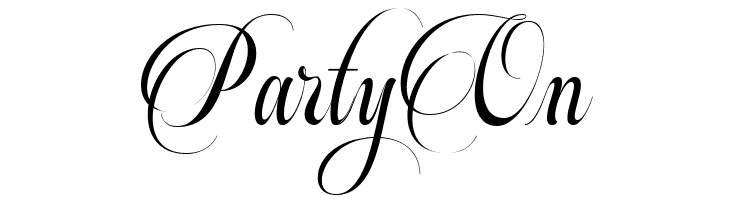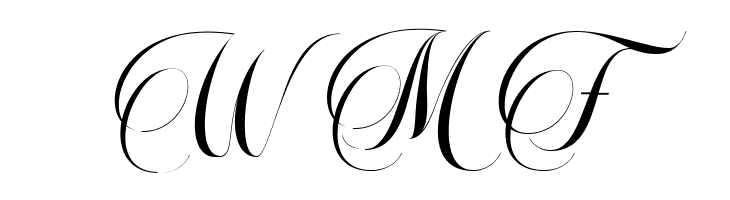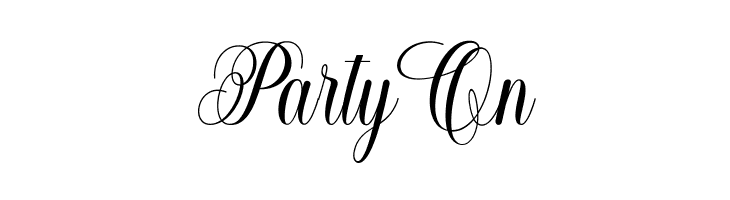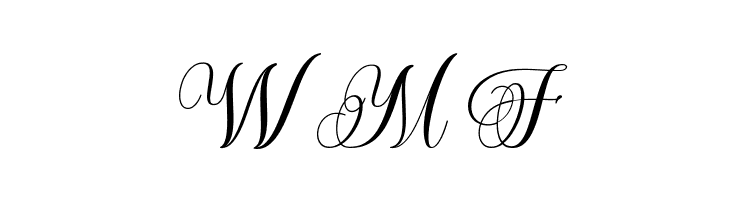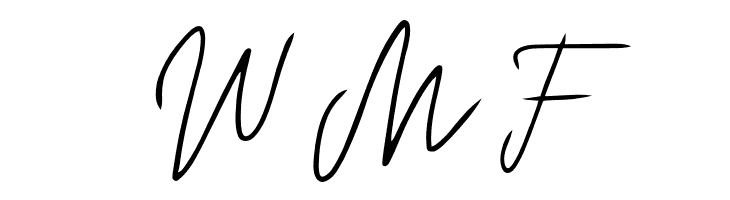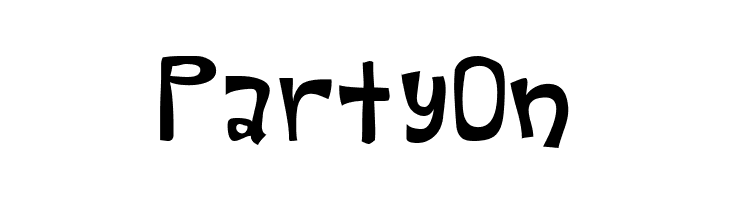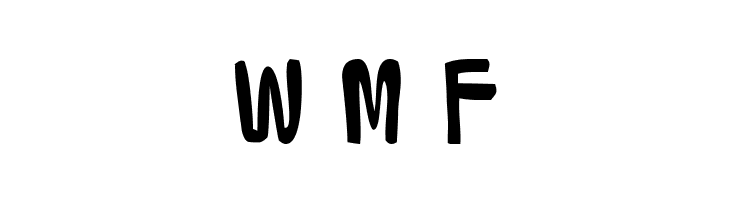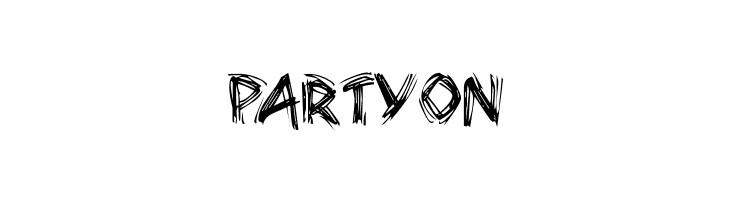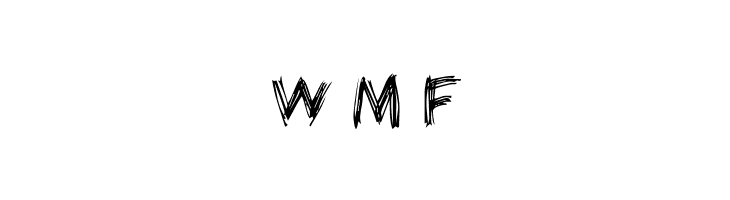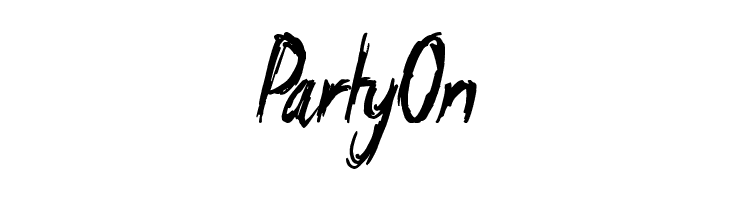
• Beachman Script
An elegant script font with flowing, cursive strokes and refined curves.
• Beacon
• Beans Plantain Regular
( Fonts by Udegbunam Tbj )
A bold, hand-drawn font with an expressive and organic style.
• Bearpaw
• Bearz
• BeatriceScript-Regular
An elegant script font with intricate loops and flowing cursive style.
• Beatrix
A lively, cursive script font with fluid, interconnected letters.
• Beautiful Roses Script
An elegant script font with flowing, interconnected letters and ornate flourishes.
• Beautiful Vampires
( Fonts by Jonathan S. Harris )
A bold, jagged font with an edgy, brush-like appearance.
• BeautifulScript-script
A fluid, elegant script font with a graceful, handwritten style.